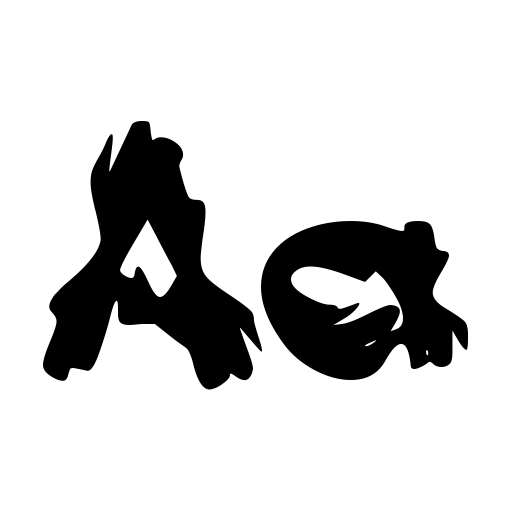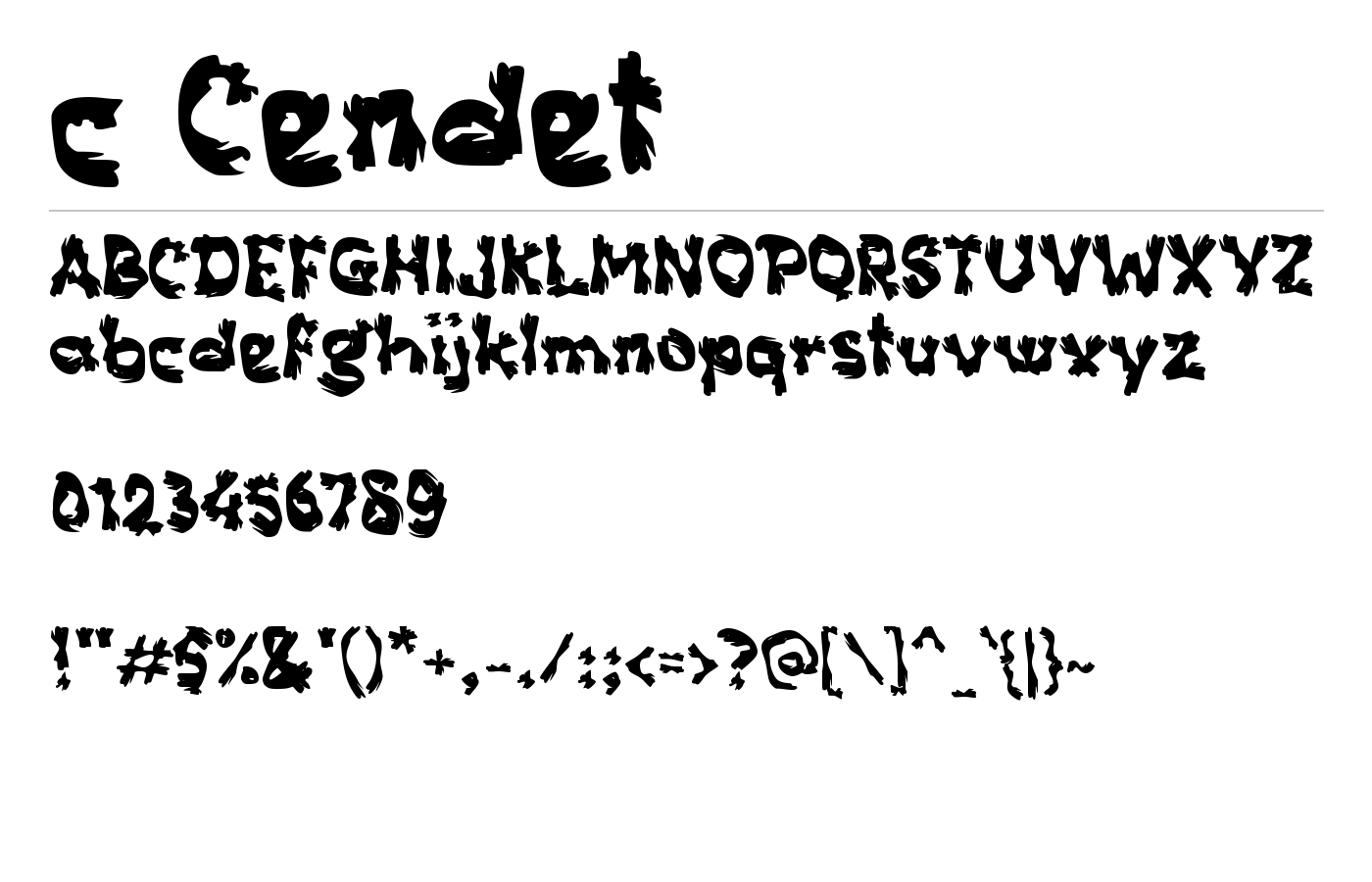
Cendet is a bold, playful display font with a hand-drawn, irregular texture that gives it a quirky and energetic personality. Its chunky letterforms with uneven edges and varied stroke widths make it ideal for creative projects, eye-catching headlines, and casual branding that seeks a fun and informal vibe. This font works best in contexts where a unique, artistic touch is needed rather than formal or body text.
c Cendet Font
About c Cendet Font